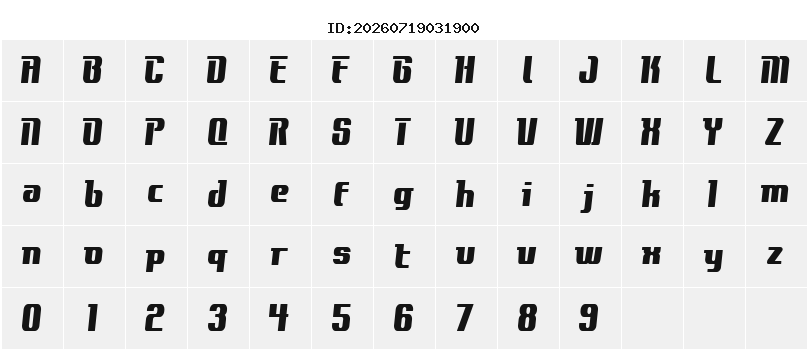
• Font Name: Contact
• Font Style: ExtraBold
• Font ID: Macromedia Fontographer 4.1J Contact ExtraBold
• Full Font Name: Contact ExtraBold
• Version: Macromedia Fontographer 4.1J 01.1.23
• PostScript Name: ContactExtraBold
• Character Count: 108
• Copyright: Copy Right(R) : 1999 Creation all rights reserved. Contact‐ExBold. Designed by Masato Shimojima : Design studio Creation.
About Contact.ttf
Contact.ttf is a modern, elegant sans-serif font designed for ultimate readability and visual harmony. Perfect for branding, headlines, web design, and print materials.